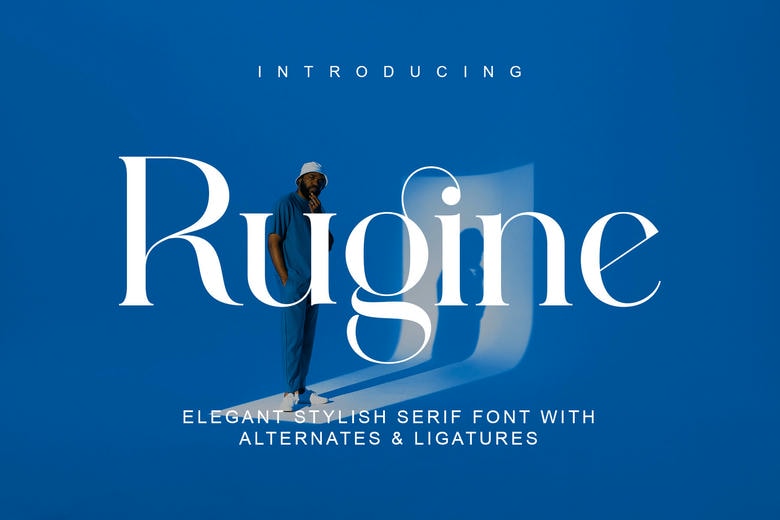
Rugine Font
Rugine is a classy ligature serif typeface reminding of the fresh flowers and old age beauty. The rather bold but elegant ligatures make Rugine a tasteful elegant and female typeface. Ideal to use into more luxurious designs, in florals, fashion, or high-end branding, Rugine combines the elegance of traditional designs of serifs that are blended with a contemporary look.
All the letters are deliberate and custardly have a touch of beauty and tranquility that lifts the scale of any project it is used with. Rugine can add the element of chic and natural elegance to your work. You know your designs need some elegance, then leave the elegance to this font and, as a result, behold your designs bloom with style and personality.
Rugine Serif Font